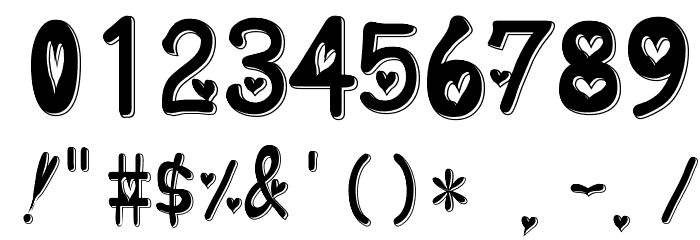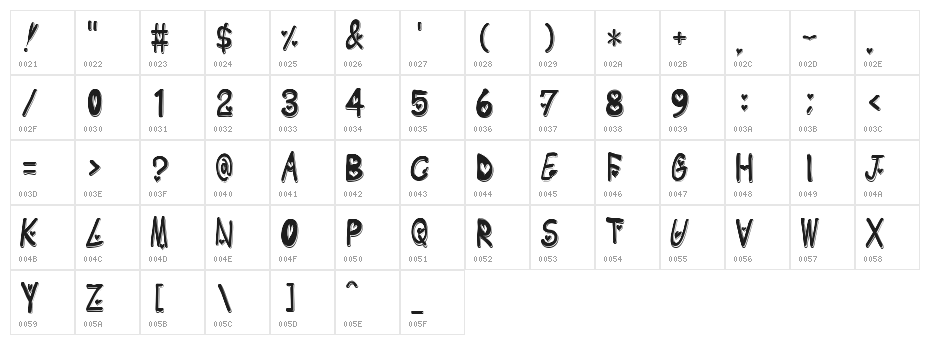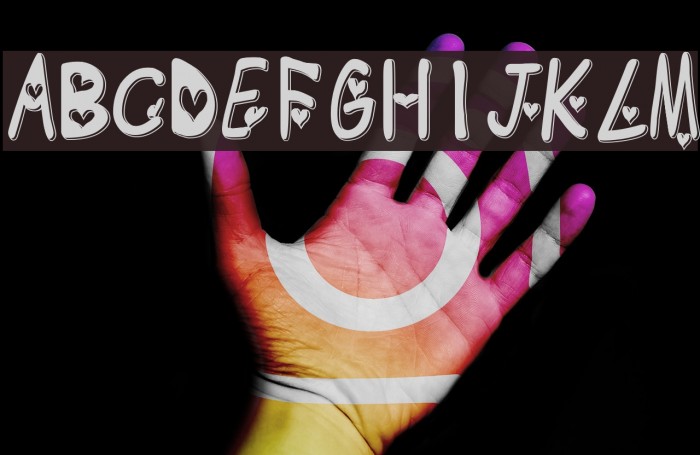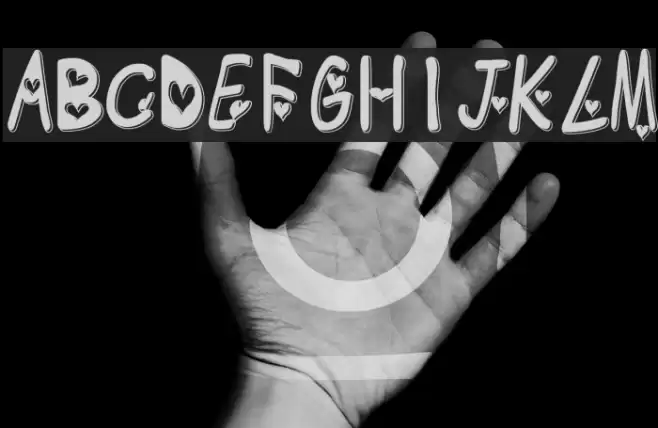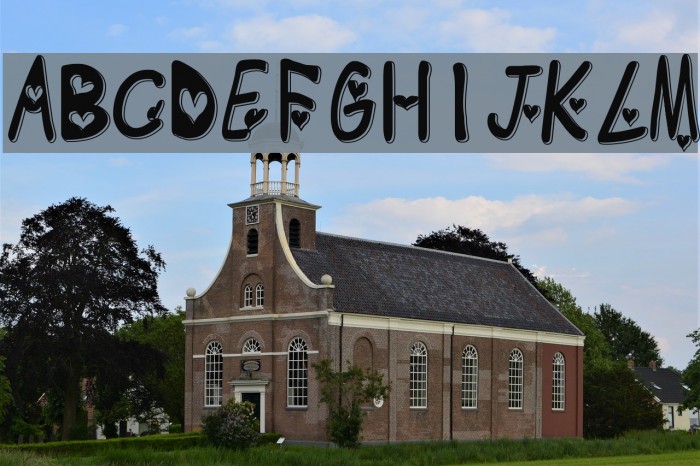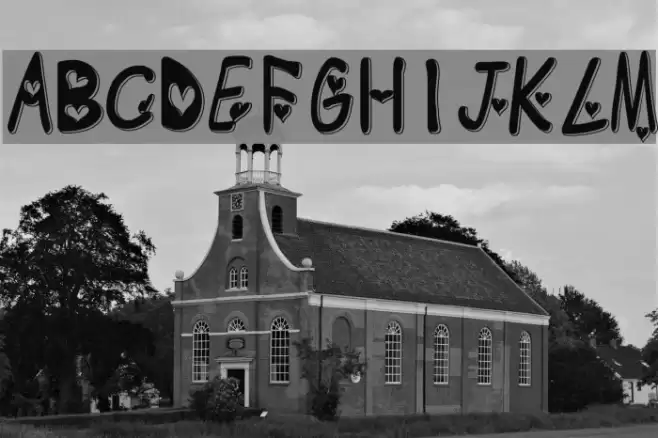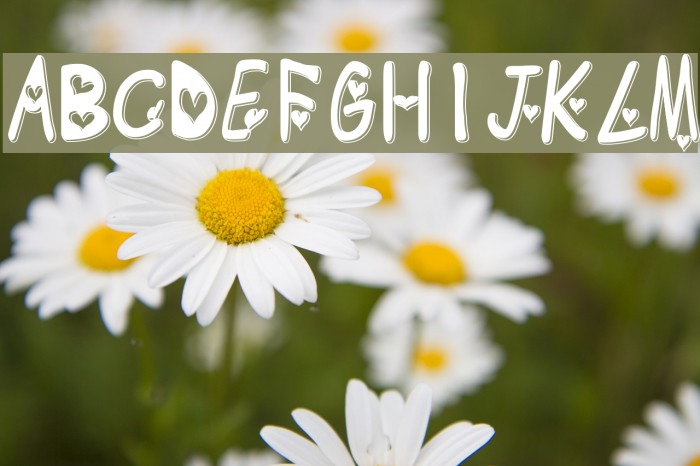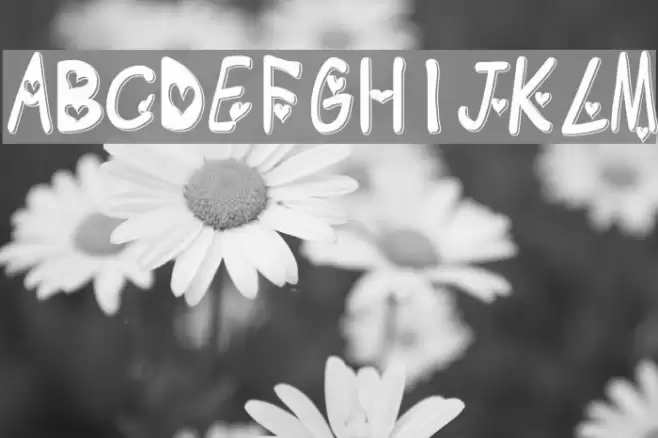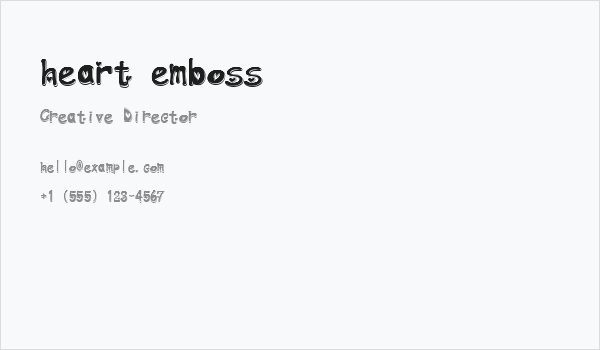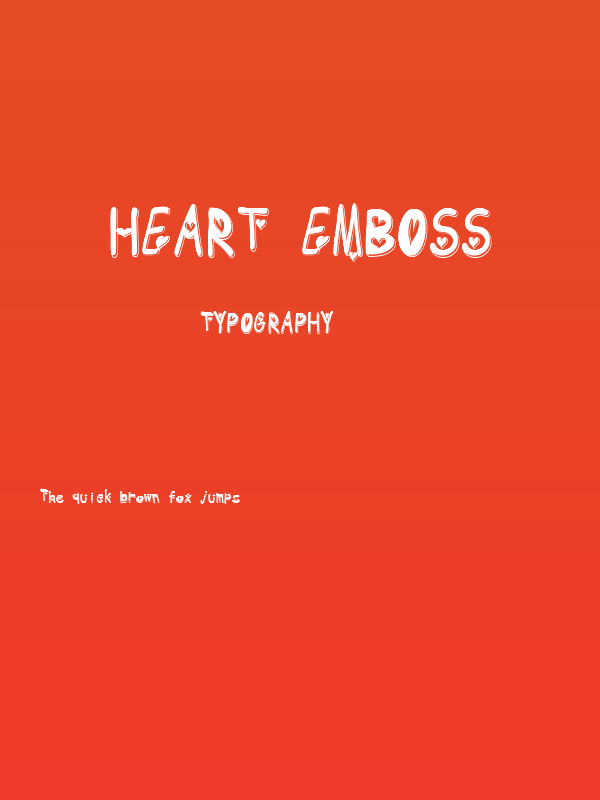
heart emboss Font
heart emboss Description
This playful and decorative font features a unique heart motif embedded within each character, creating a whimsical and romantic aesthetic. The letters are bold and rounded, with a consistent thickness that gives them a solid and substantial appearance. The heart shapes are cleverly integrated into the design, adding a touch of charm and individuality to each letter. This font is perfect for projects that require a fun and loving touch, such as Valentine's Day cards, wedding invitations, or any design that aims to convey warmth and affection. The overall style is modern and decorative, with a focus on creativity and expressiveness.
| Proposed Projects | Ideal for Valentine's Day cards, wedding invitations, love-themed posters, and playful branding. |